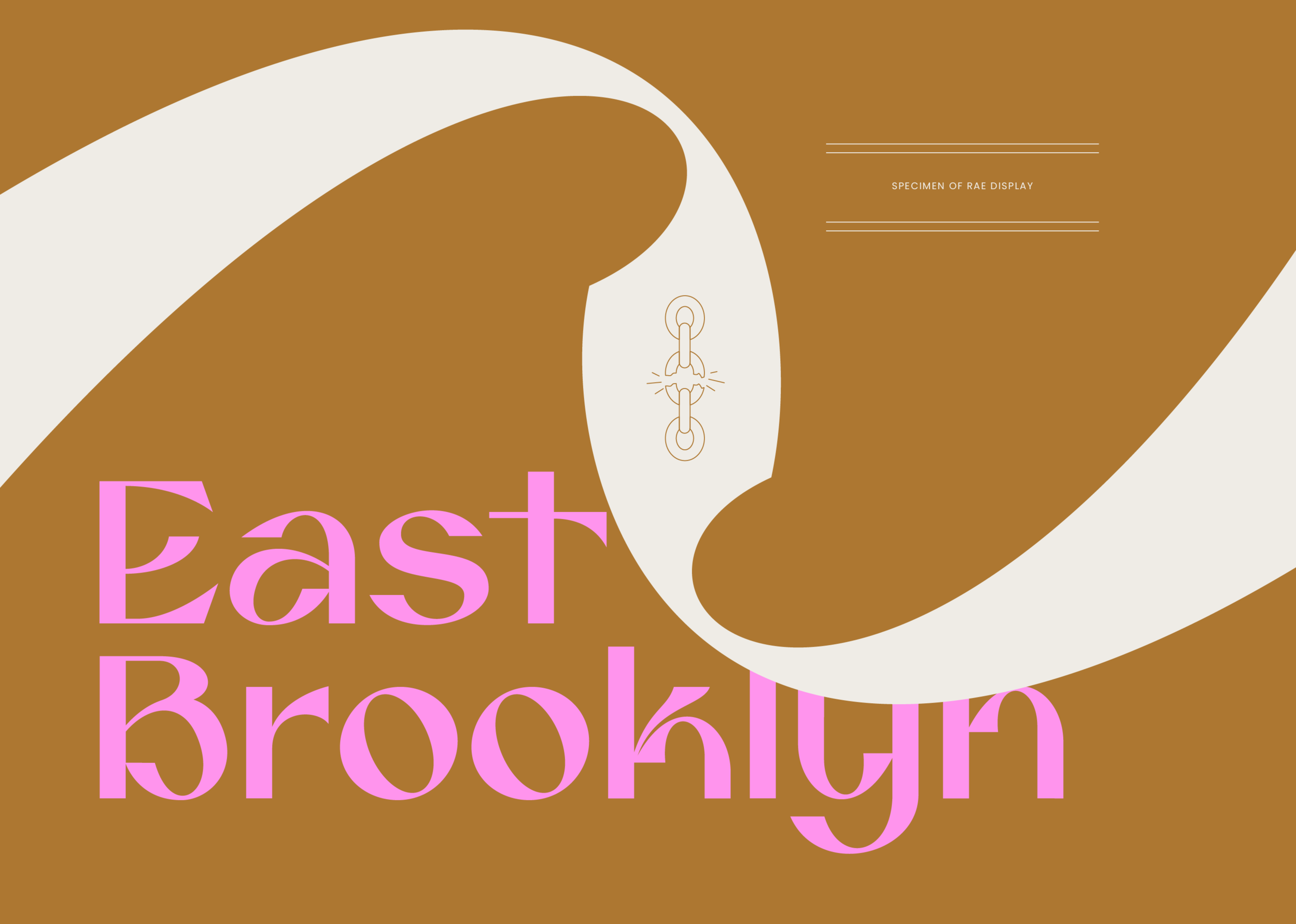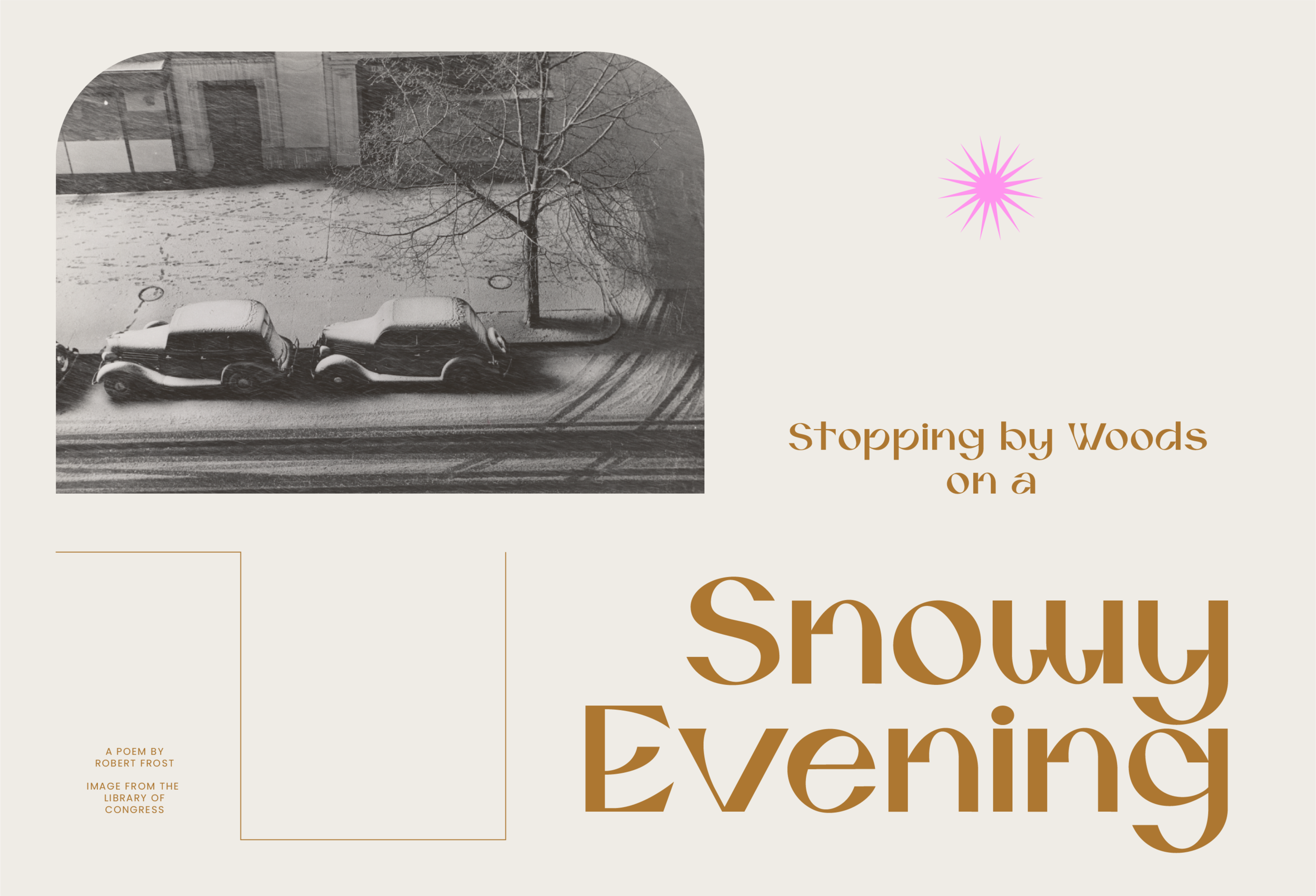
Rae - Display Typeface
Rae is a bold typeface that makes for eye-catching, impactful design. The typeface features uppercase and lowercase letterforms with several dynamic alternate characters.